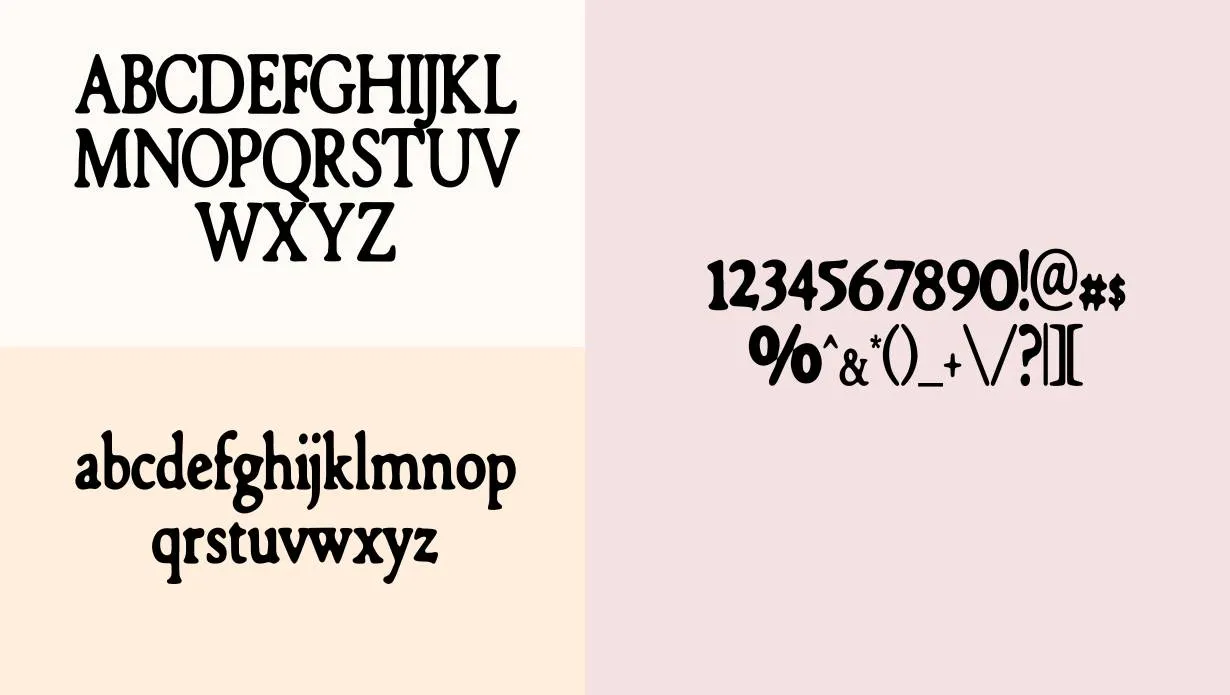
Wolfpack Font embodies a wild and untamed spirit, capturing the essence of a wolf’s strength and freedom. With its rugged and slightly stylized letters, this font is perfect for projects that seek a touch of the wilderness and adventure. Use it for outdoor event posters, wildlife campaigns, or any design where a connection with nature is desired.
The font’s technical details include a moderate weight and medium width, creating an overall appearance that adds a sense of wild elegance. Wolfpack Font is crafted for projects that aim to evoke a spirit of untamed freedom and natural beauty.